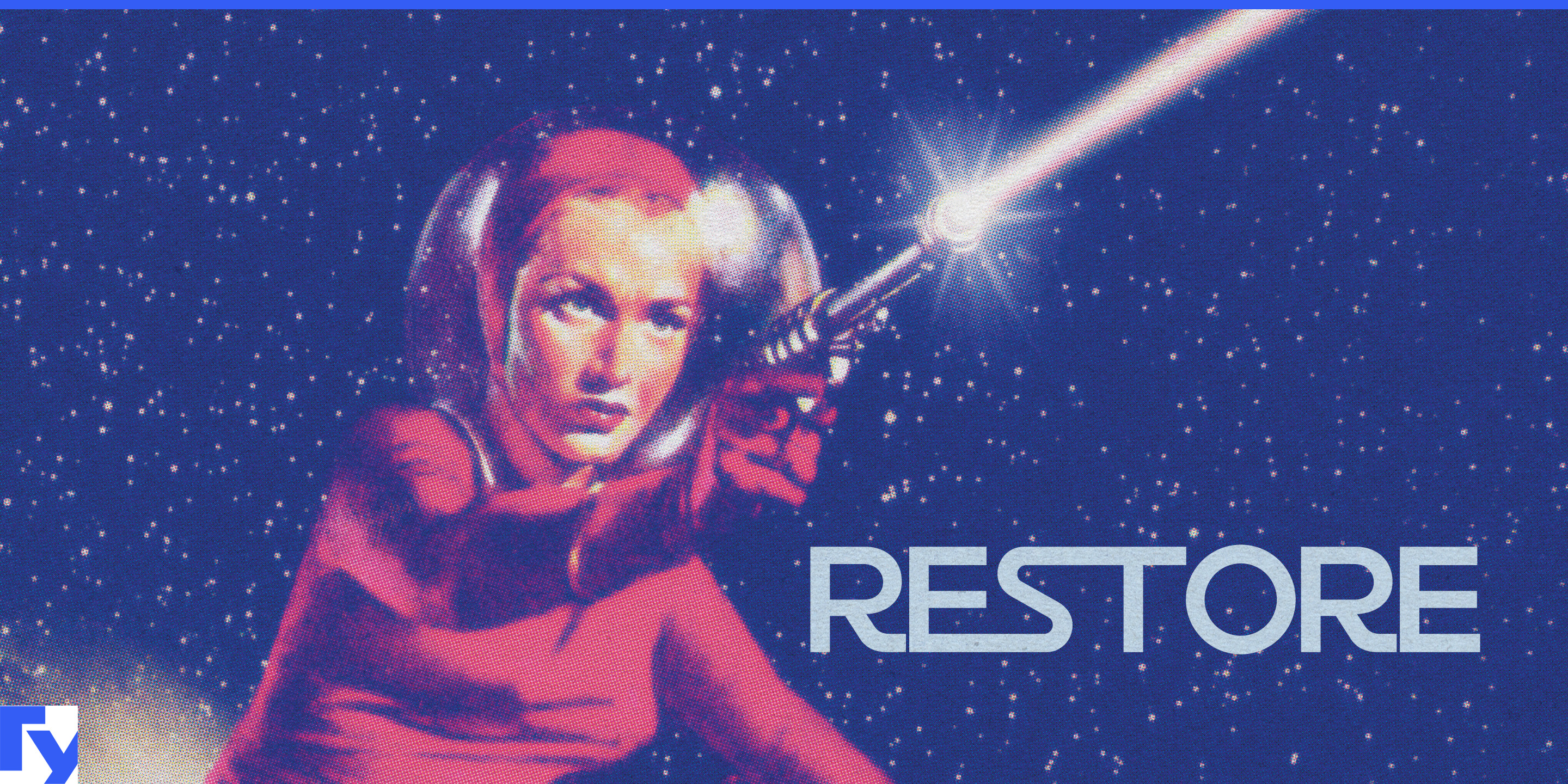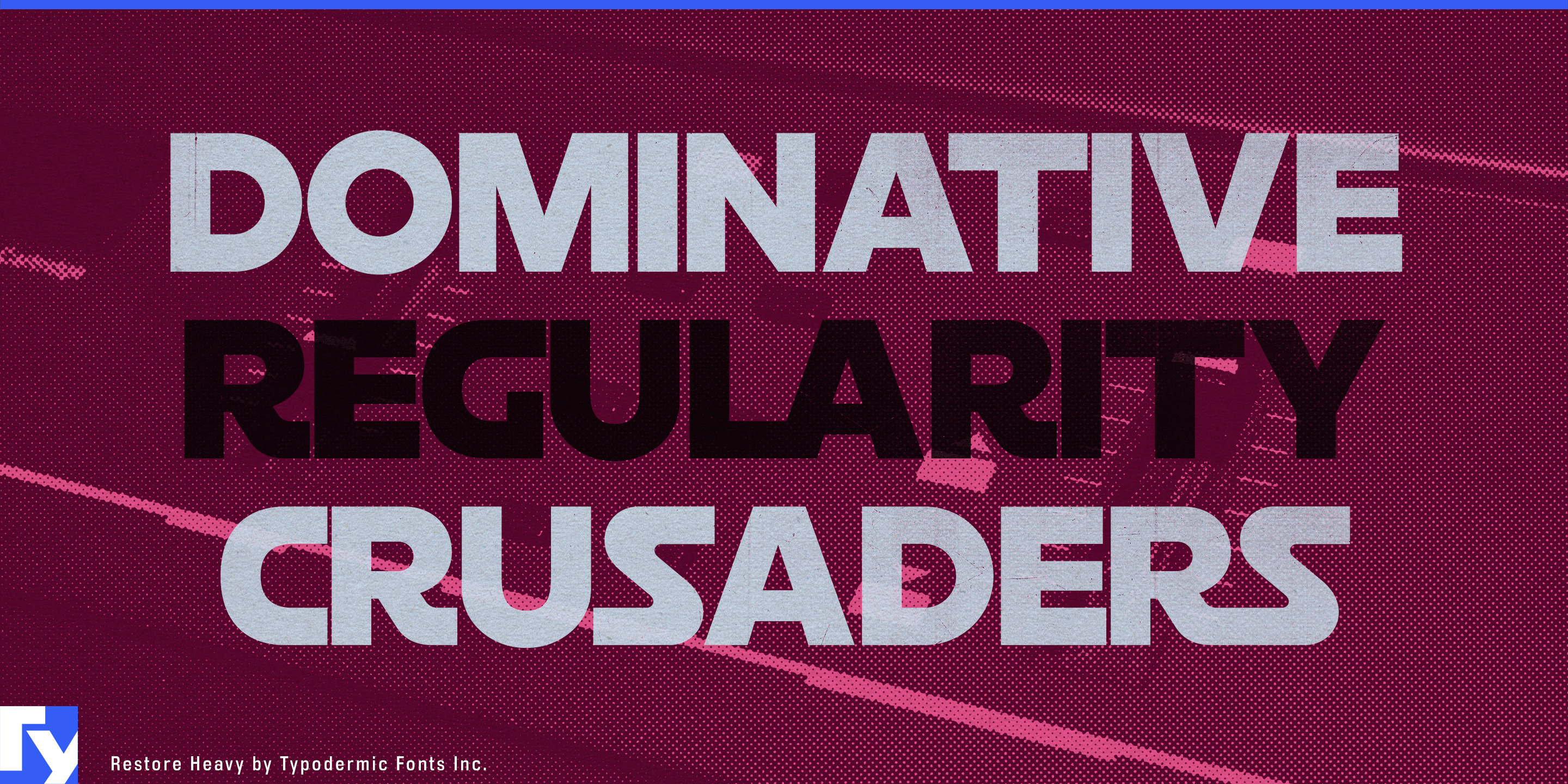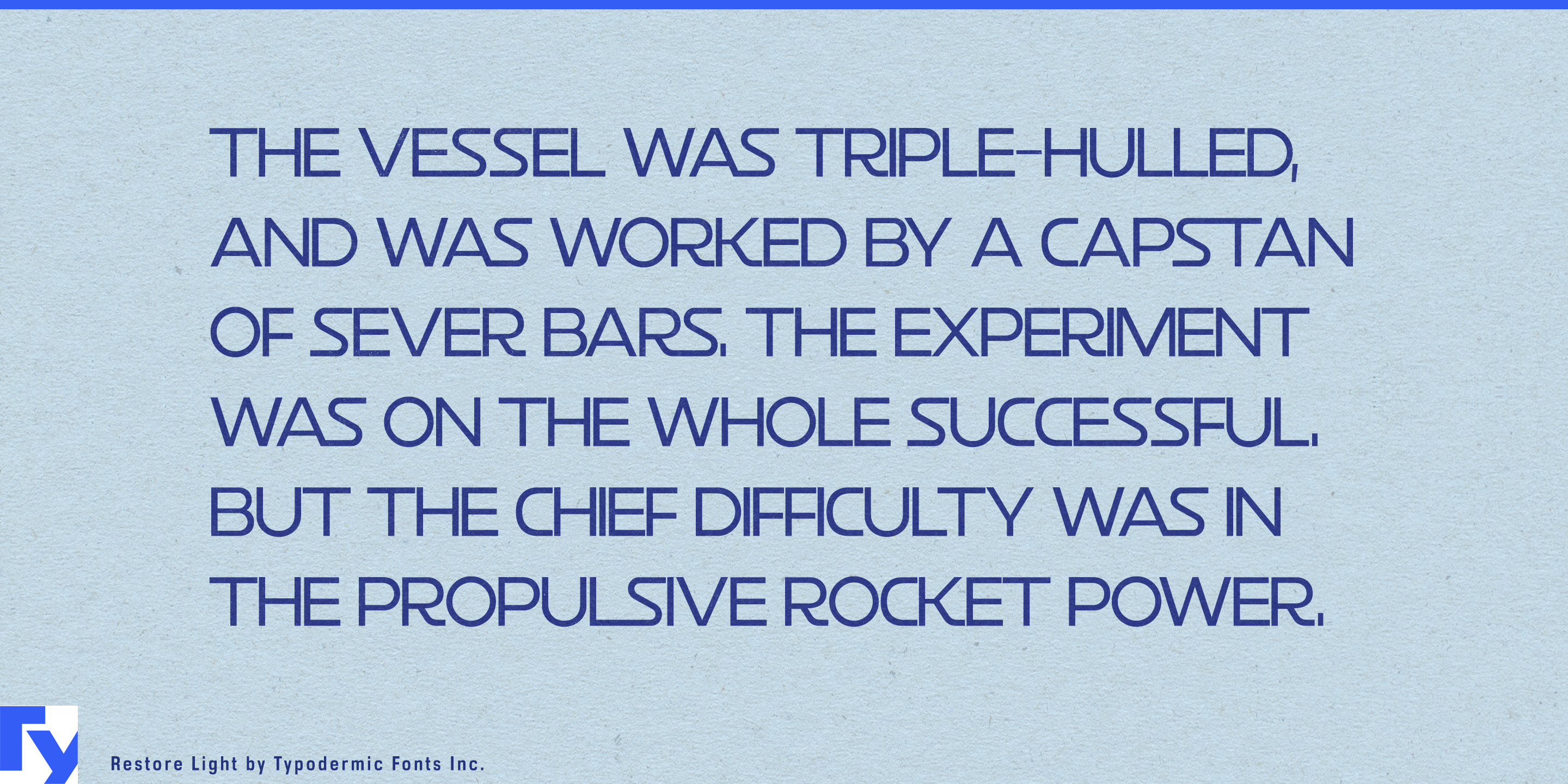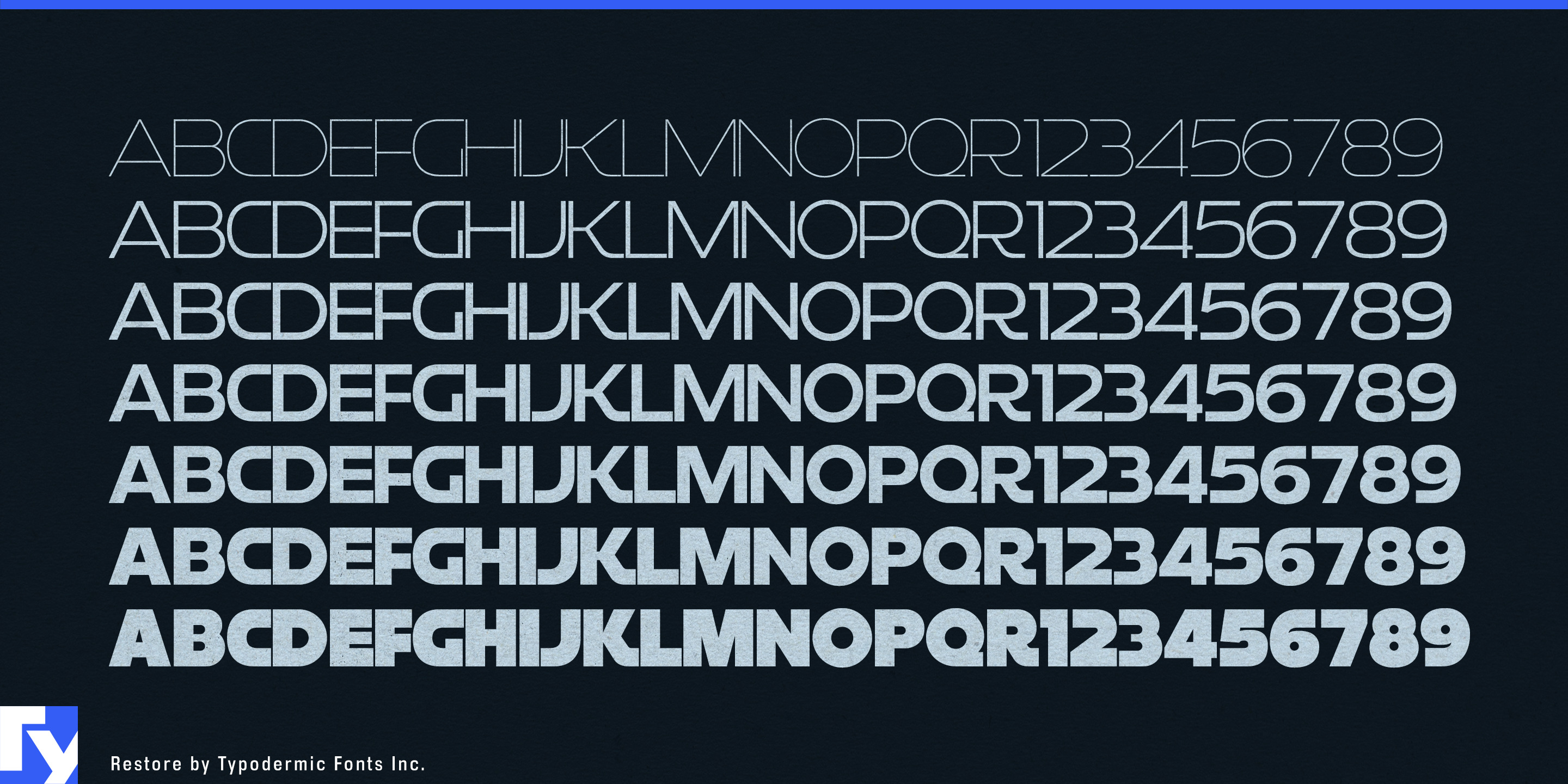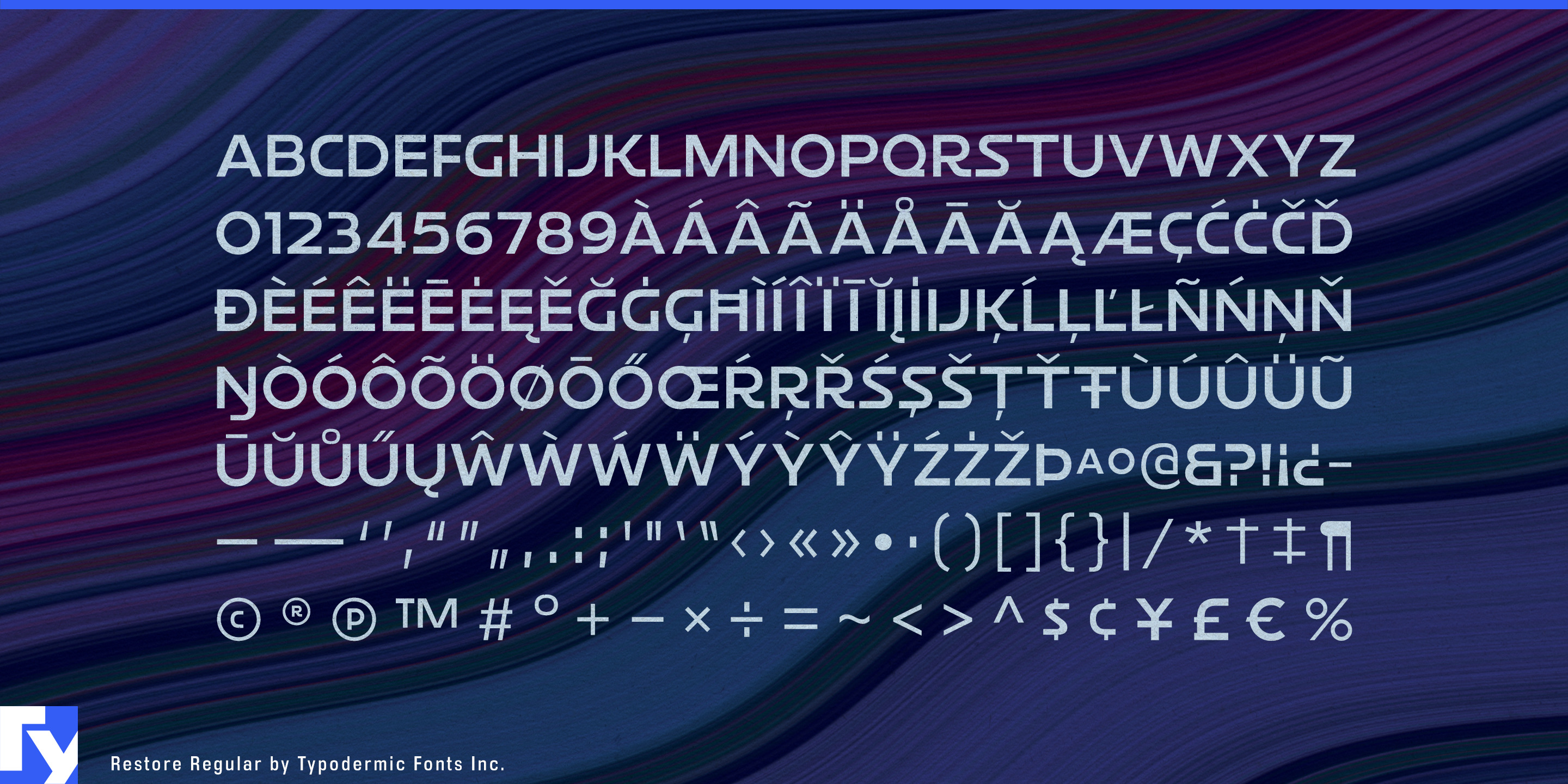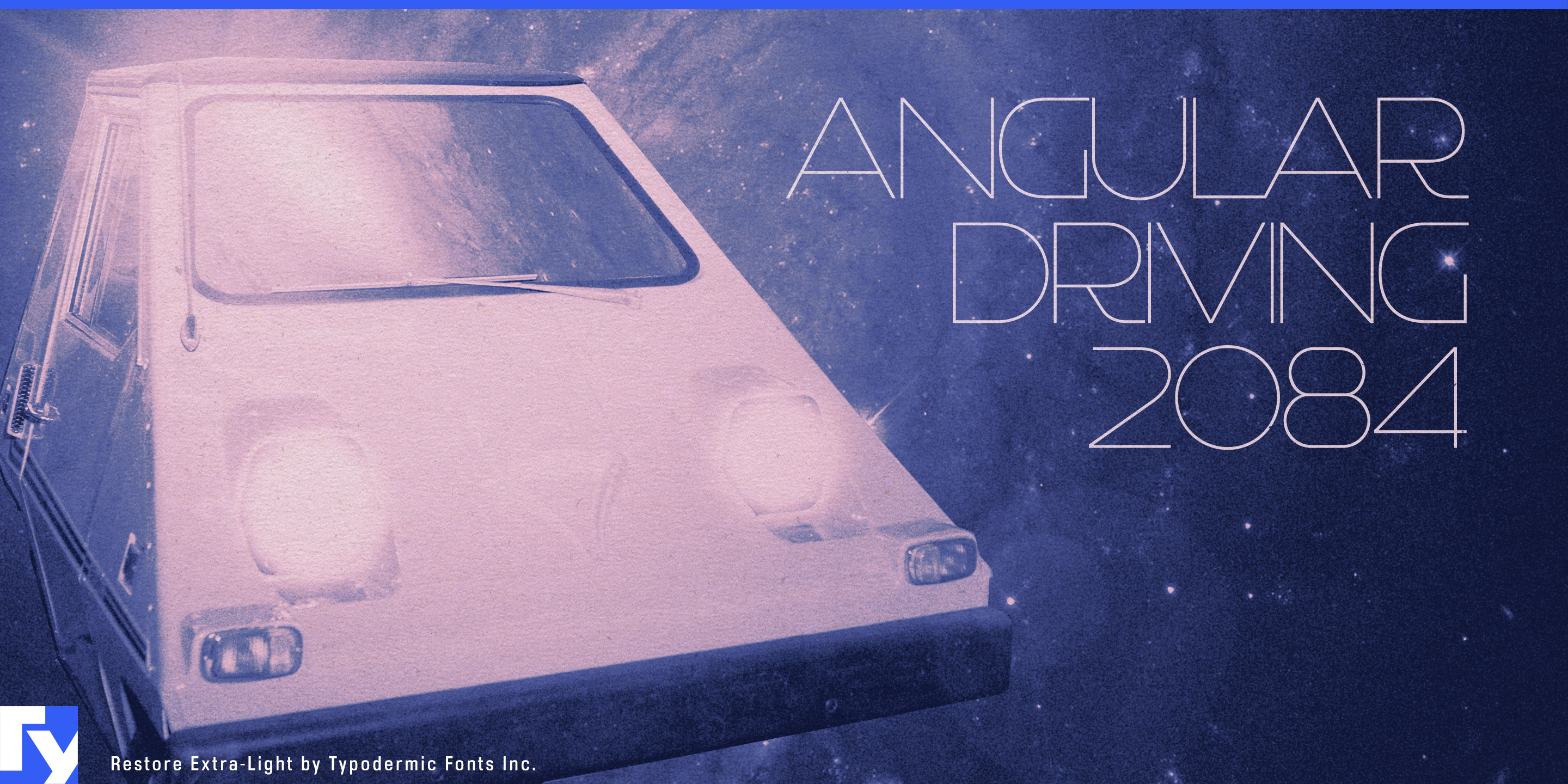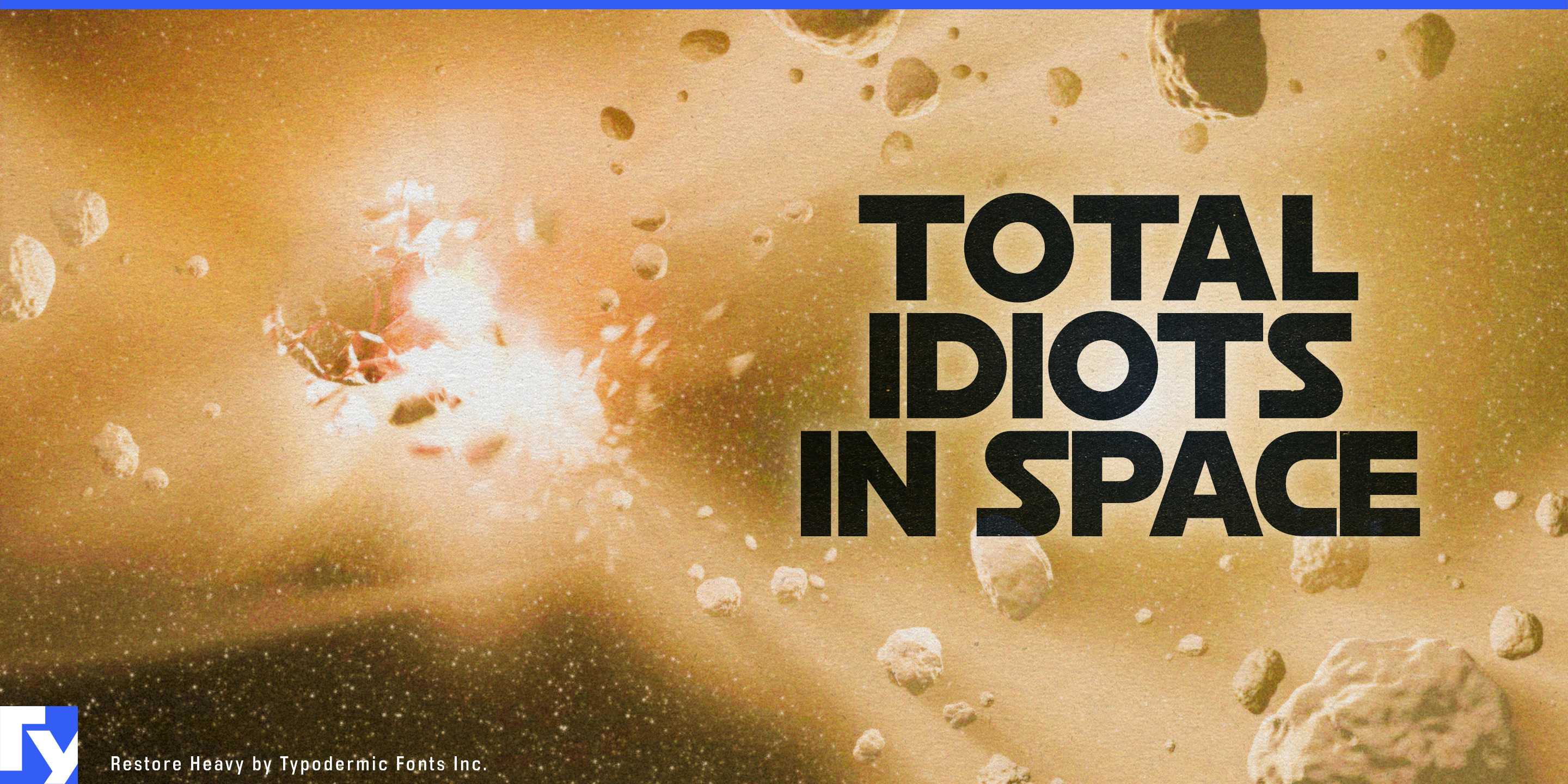
Restore
Restore is a geometric display typeface that delivers authority with precision. Its squared-off curves, crisp angles, and compact spacing create a look that’s both industrial and refined. In the lighter weights, Restore feels lean and technical; in the heavier weights, it becomes bold, blocky, and unshakable.
Seven carefully graded weights give you control over tone and impact. Use Heavy or Black for commanding headlines, protest-style posters, stadium signage, or rugged product packaging. Midweights bring balance to corporate wordmarks, automotive branding, or editorial mastheads. Light and Extra-Light excel in sci-fi titles, architectural portfolios, high-tech startups, or minimalist catalog design. Restore’s proportions and tight rhythm keep lines cohesive, while its extensive Latin-script coverage makes it ready for global campaigns. Whether your design calls for retro-futuristic nostalgia, modernist clarity, or industrial grit, Restore adapts without losing its unmistakable presence.
Choose Restore when you want your typography to stand firm, speak clearly, and leave a lasting impression.